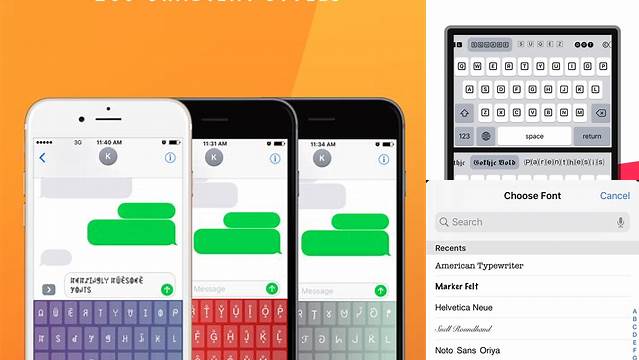
Awesome Fonts For IPhone 16: Make Your Phone Pop!
Hey everyone! Are you as excited as I am about the upcoming iPhone 16? I know I am! One of the coolest things about a new phone is always the chance to customize it and make it your own. And what's the easiest way to do that? Yup, you guessed it: fonts! So, let's dive into some cool fonts for iPhone 16 that'll have you styling in no time. We'll cover everything from where to find these fonts to how to install them, and even some design tips to make your phone look absolutely killer. Get ready to level up your iPhone 16 experience, because we're about to make it uniquely you.
H2: Discovering the Best Fonts for Your iPhone 16
Alright, so you've got your shiny new iPhone 16, and now you want to jazz it up with some killer fonts, right? Finding the best fonts for your iPhone 16 can be a real game-changer. It's all about personalizing your device to match your vibe. First things first, let's talk about where to find these typographical treasures. You're not just limited to what Apple offers; there's a whole world of font possibilities out there. Websites like Dafont, Google Fonts, and Font Squirrel are goldmines for free fonts. They offer a vast array of styles, from sleek and modern to quirky and vintage. Be sure to check the licensing agreements – most free fonts are fine for personal use, but if you're planning to use them commercially, you might need to purchase a license. Then, you can explore font apps directly on the App Store. Apps like AnyFont and iFont let you install custom fonts directly onto your iPhone 16. This is a great way to preview fonts and manage your collection. Don’t forget to consider font compatibility. Not all fonts work perfectly on all apps. So, test your chosen fonts in the apps you use most often – your messaging apps, notes, and social media. This ensures a seamless and enjoyable experience. Now, as you start browsing the vast selection, think about what kind of look you’re going for. Do you want something that’s easy to read? A clean sans-serif might be your best bet. Or, are you aiming for a more unique and expressive feel? A bold script or a decorative font could be perfect. Experimentation is key! Download a few fonts, try them out, and see what resonates with you. After all, the best fonts are the ones you love and that make your iPhone 16 truly yours.
H3: Choosing Fonts That Reflect Your Personality
Okay, so we've talked about where to find fonts, but how do you actually choose fonts that reflect your personality? Well, it’s a fun process. This is where the real magic happens. Think of your iPhone 16 as a canvas, and fonts are your paint. First, understand your personality. Are you minimalist? A clean, sans-serif font like Open Sans or Roboto could be perfect. These fonts are simple, elegant, and easy on the eyes. If you're more of a classic or vintage type, consider serif fonts like Times New Roman or Garamond. They bring a sense of sophistication and timelessness. Feeling creative and a little rebellious? Explore script fonts, like Dancing Script or Pacifico. These add a touch of personality and flair, but use them sparingly, as they can be less readable in large blocks of text. Remember that you want the font to complement your overall phone aesthetic. Consider your wallpaper, app icon styles, and even the colors you frequently use. The font should be an extension of this, not a clash. Another tip is to consider the context in which you'll be using the font. Is it for reading long articles, or just for quick messages and social media posts? For readability, opt for fonts that are easy to read at small sizes. Avoid overly intricate or thin fonts if you spend a lot of time reading on your phone. Also, don't be afraid to mix and match! Pair a bold header font with a more subdued body font for visual interest. Just keep the number of fonts you use to a minimum, to avoid a cluttered look. Keep an eye on the weight of the font as well. Bolding a font can make it stand out, while using a thinner font can create a more modern feel. It’s also important to think about the emotional impact of the fonts. Fonts can evoke different feelings. Playful fonts can bring a sense of joy, while a bold, modern font can convey power and confidence. With a little exploration, you’ll be able to choose fonts for your iPhone 16 that tell your story.